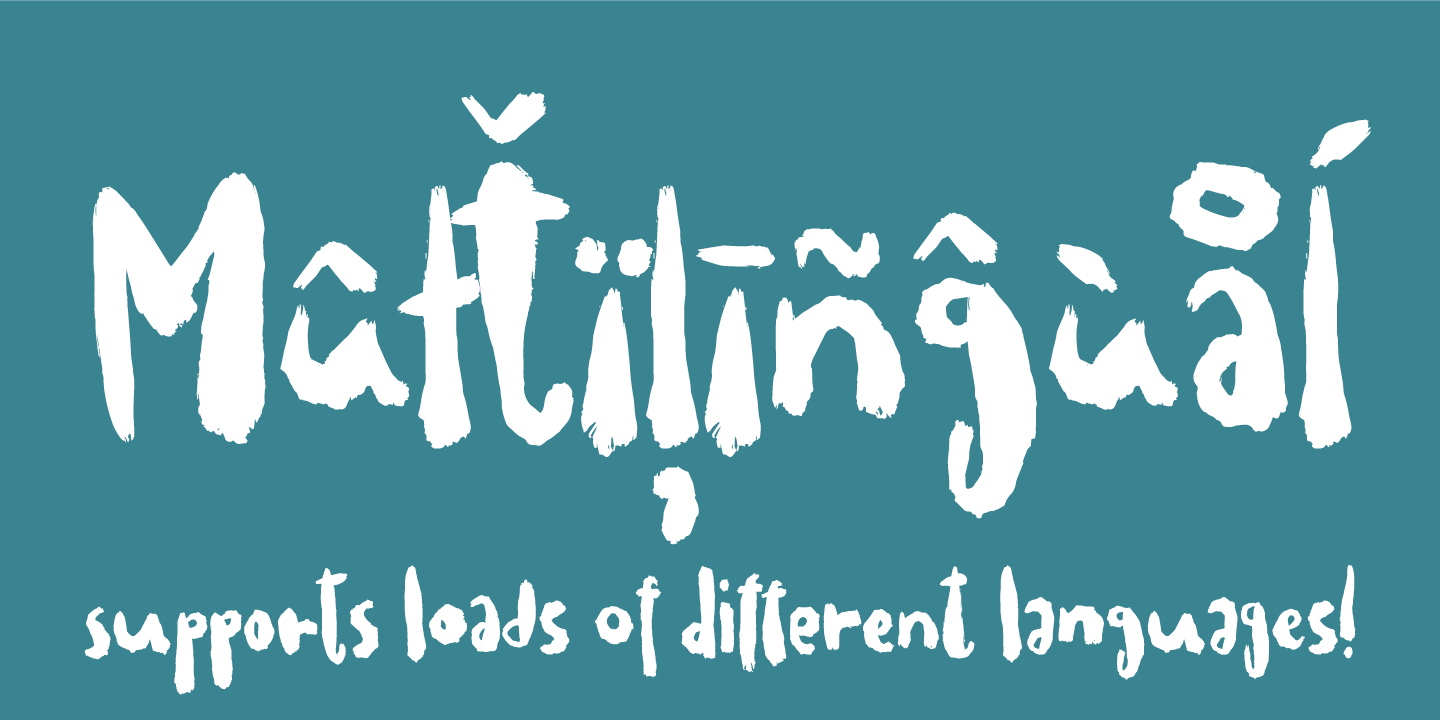
Drillepind Free Download
Drillepind Font Free Download
Drillepind Font Free Download is a bold and expressive script typeface designed to make a striking visual impact. With its unique letterforms, dynamic strokes, and a touch of rustic charm, this font is perfect for branding, posters, logos, packaging, and any project that needs an artistic, handcrafted look.
The bold, expressive letterforms of Drillepind ensure strong visual appeal while maintaining readability across both print and digital platforms. Whether you’re designing for creative brands, event promotions, or artistic product packaging, Drillepind Font Free Download adds personality and flair to your work.